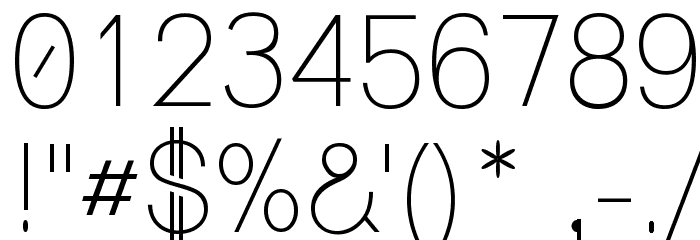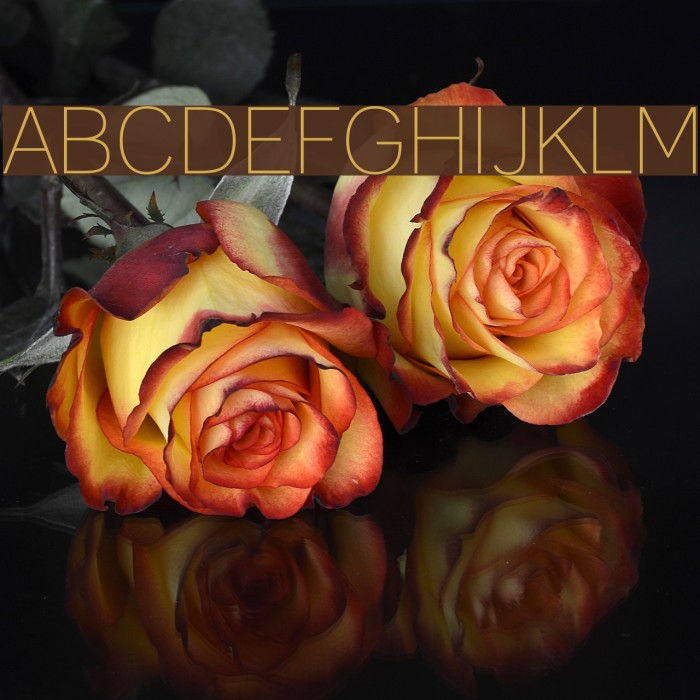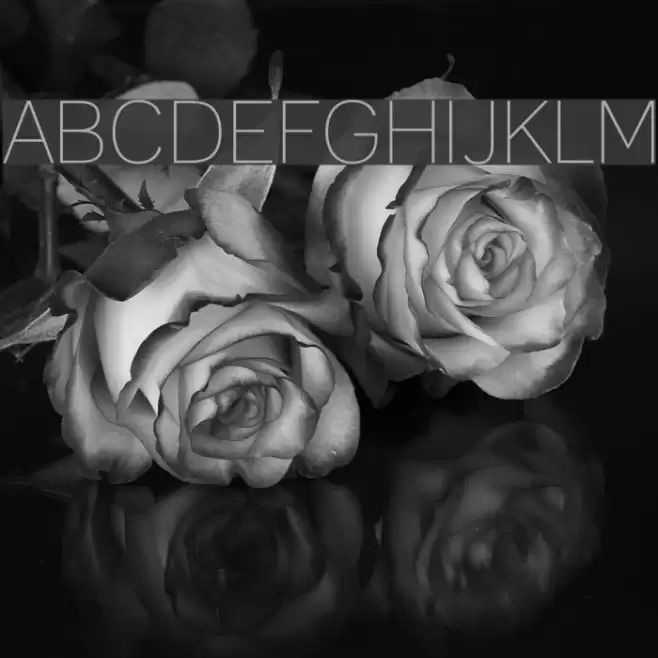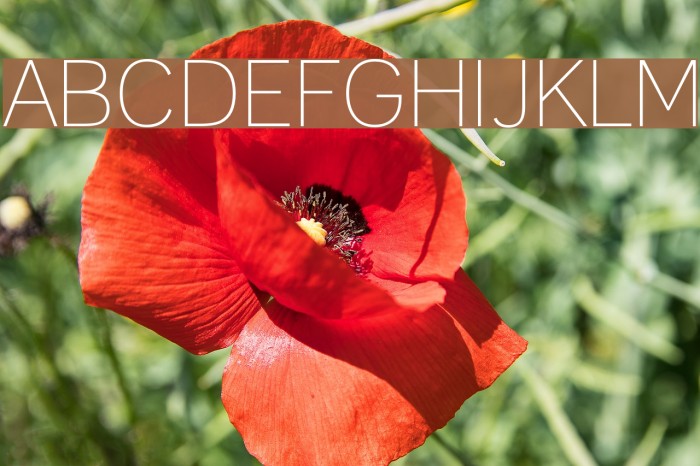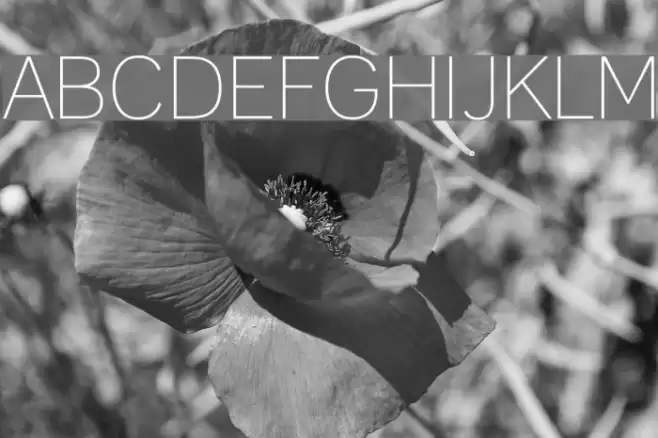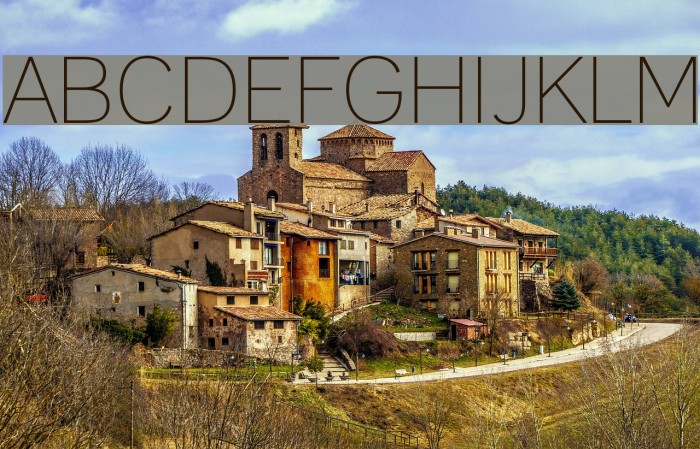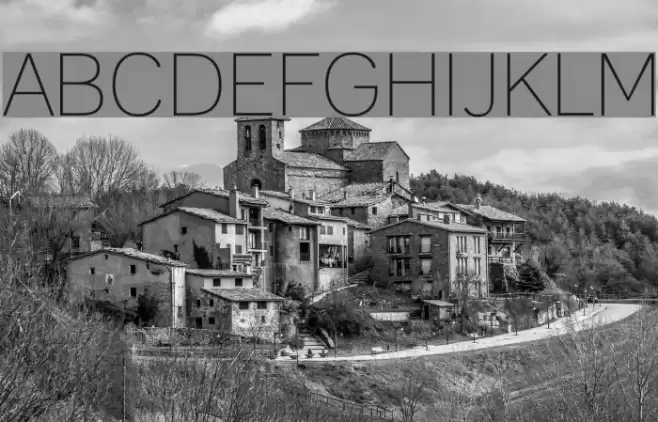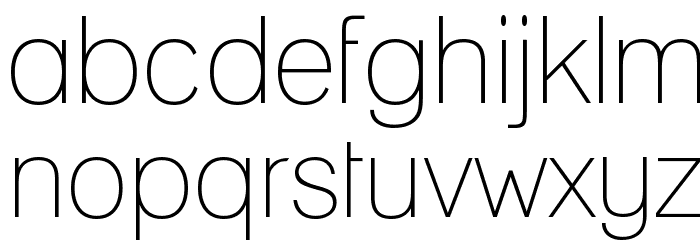
Lane Narrow Light Font
Lane Narrow Light Description
This font features a clean and minimalist design with a narrow structure, emphasizing clarity and simplicity. The characters are evenly spaced, contributing to a modern and sleek appearance. The strokes are consistent in width, providing a uniform look across all letters and numbers. The uppercase and lowercase letters maintain a harmonious balance, making it suitable for various design applications. The numerals are clear and easy to read, while the special characters are distinct and well-defined, enhancing the font's versatility.
| Width | Condensed |
| Use Case | Headlines, Body text, Logos |
| Proposed Projects | Ideal for modern branding, minimalist posters, web design, and editorial layouts. |